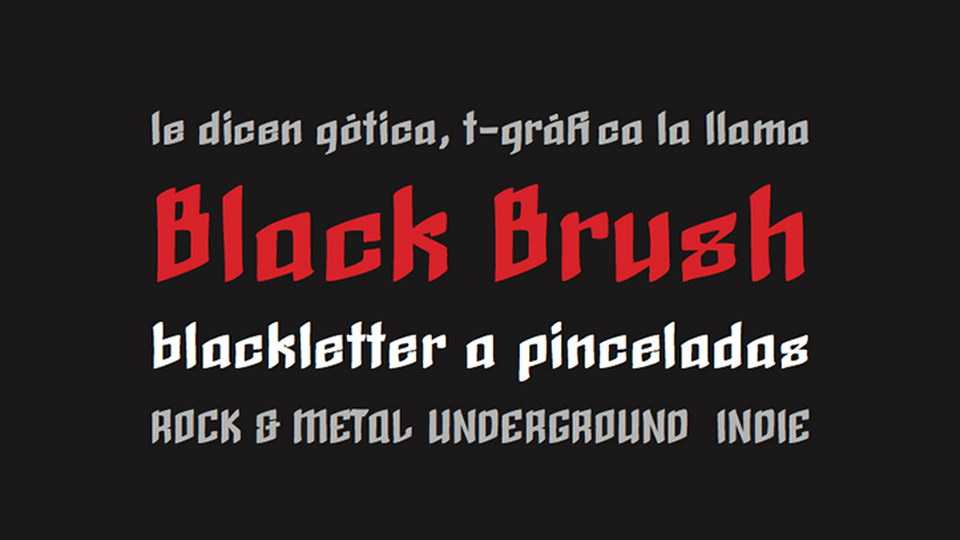
Download Black Brush font, a blackletter typeface made with brush. Black Brush font perfectly suits for headlines, posters, branding, printing and more.
Designer: Ana Marín